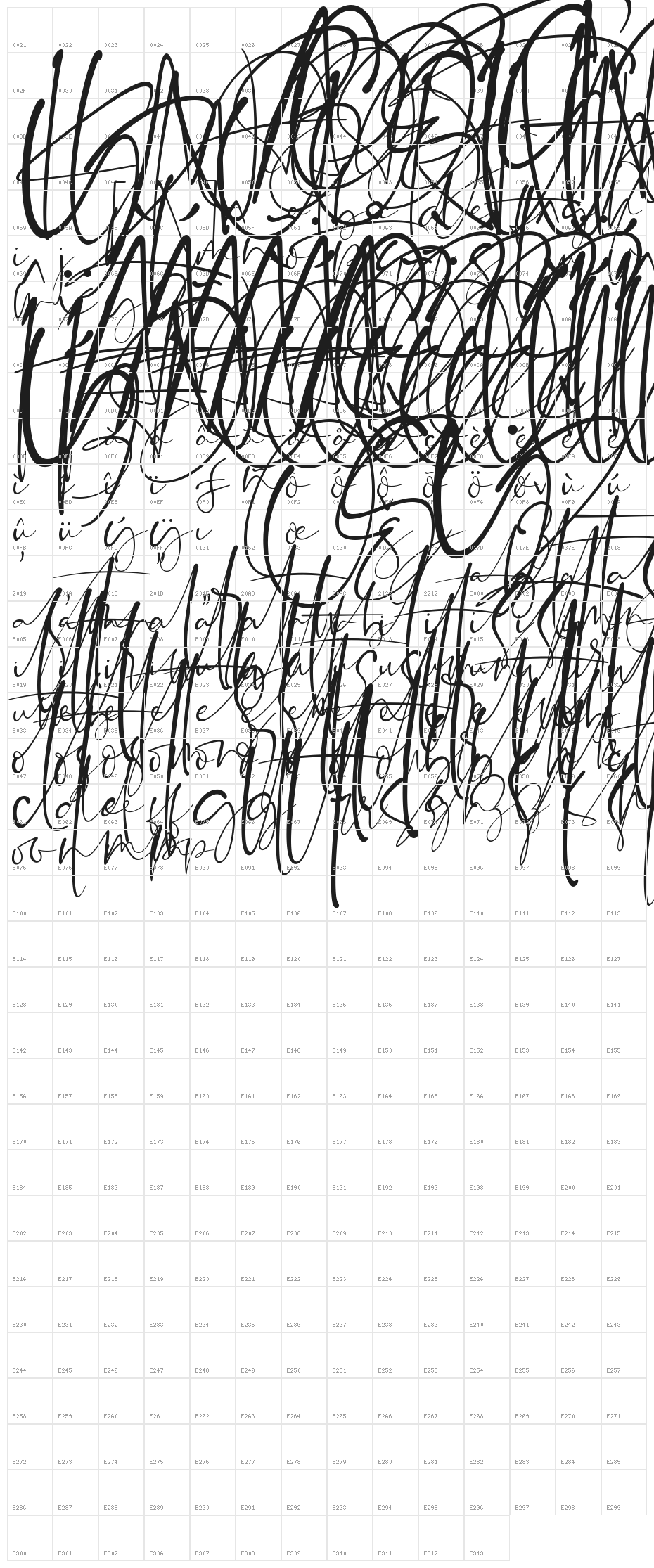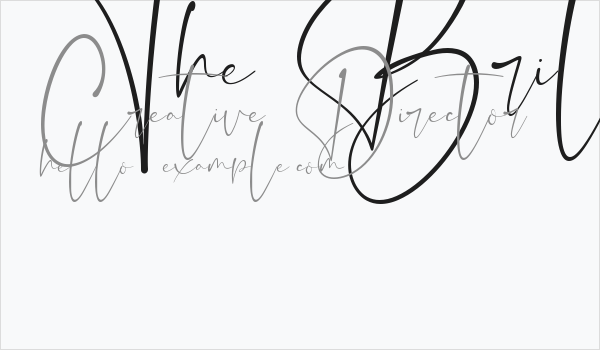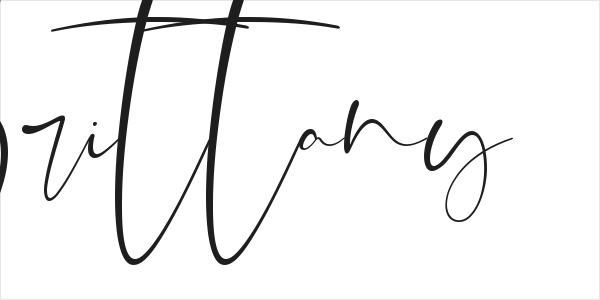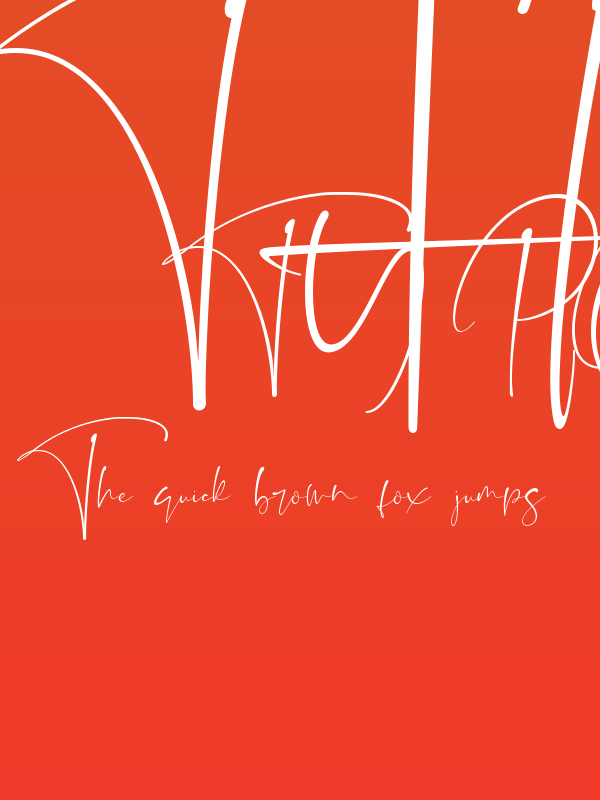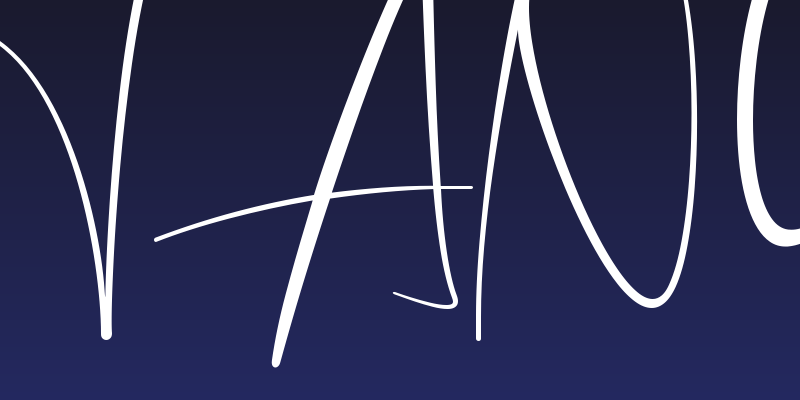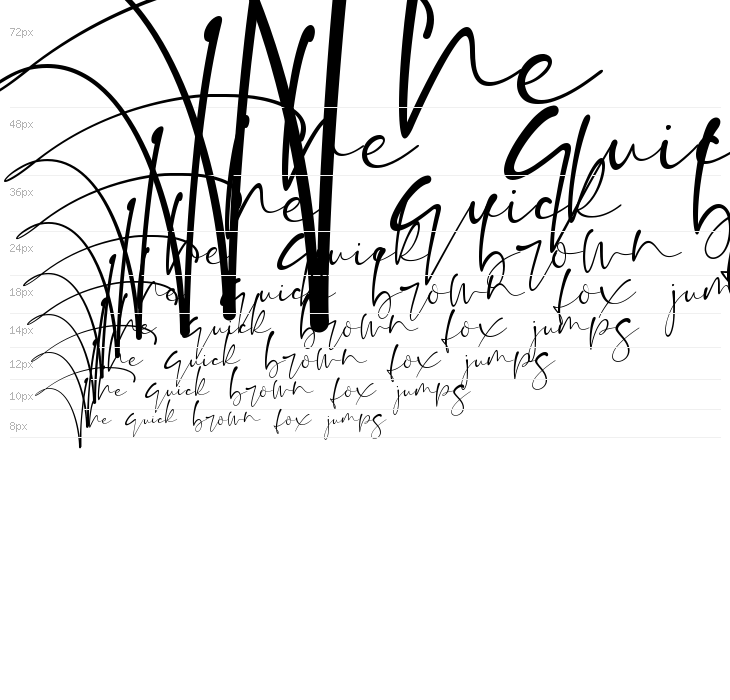
The Brittany Script Font
The Brittany Script Description
This elegant script font features a flowing, handwritten style with a modern twist. The characters are connected with smooth, sweeping lines that give it a graceful and sophisticated appearance. The uppercase letters are tall and slender, while the lowercase letters are more rounded and fluid, creating a harmonious balance. The font includes a variety of special characters and numerals, maintaining the same elegant style throughout. Its overall look is both stylish and versatile, making it suitable for a wide range of design projects.